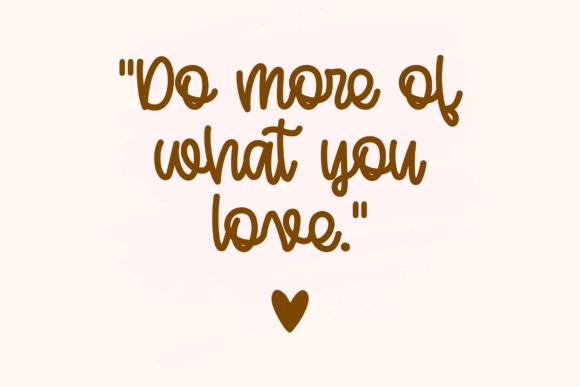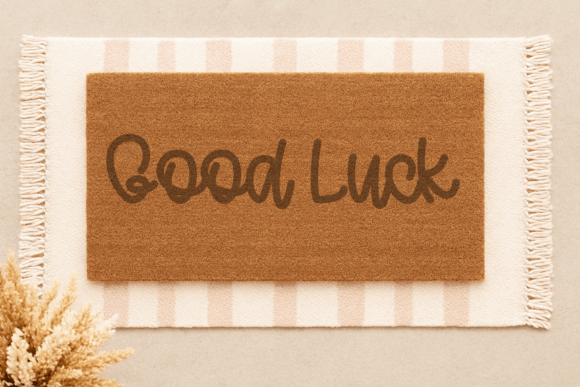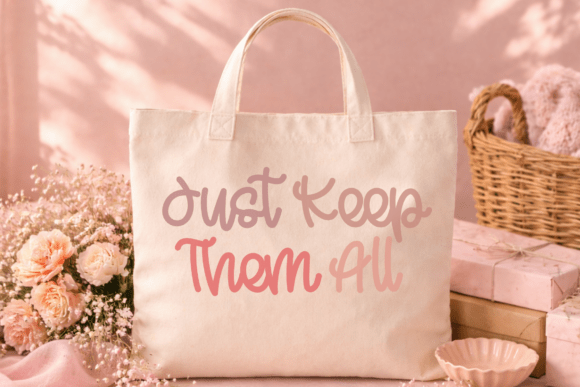
Introduction to Heart Melt Font
Heart Melt is a cute and playful handwritten script font designed to bring a soft and heartwarming feel to your creative projects.
With its smooth curves and rounded letterforms, this font creates a natural handwritten style while maintaining excellent clarity and readability Featuring a bold and slightly outlined look, Heart Melt delivers a strong visual presence that works beautifully for sticker designs, Cricut projects, and eye-catching creative layouts.